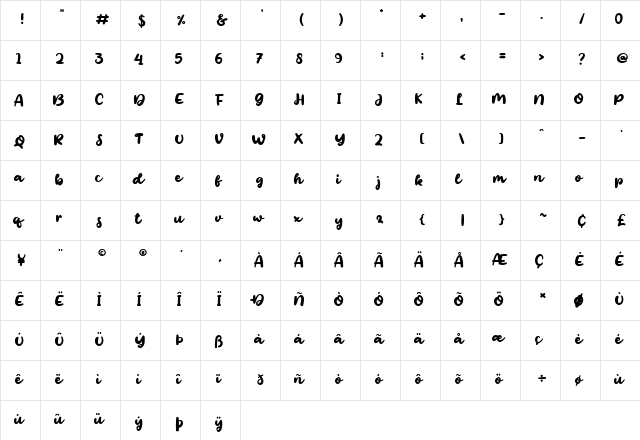
Monster Garden Regular
Design Context for Monster Garden Typeface
Monster Garden is a composed and adaptable typeface that performs quietly and consistently across a wide range of design contexts.